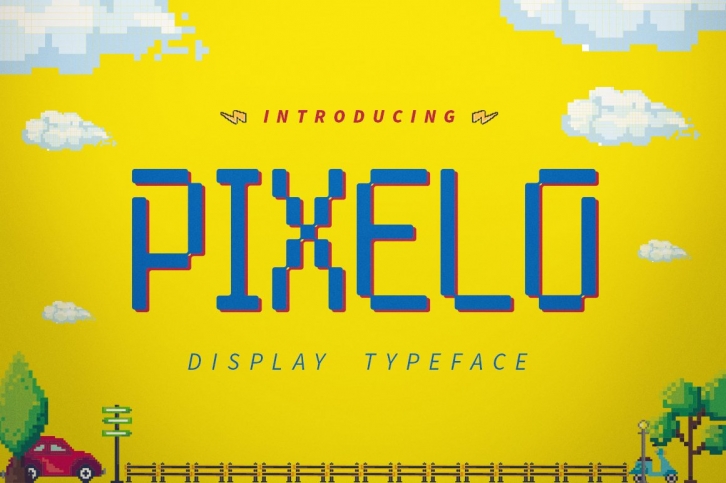
Pixelo typeface was heavily inspired by 8-bit digital retro characters. This retro styled typeface can be used for headline, logo, logotype, label, CD cover, apparel design.
Features: Uppercase, Lowercase, Numerals, Symbol, and Punctuation.